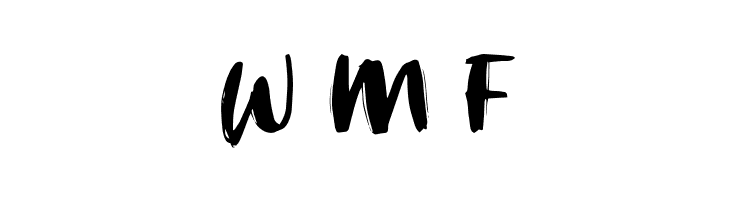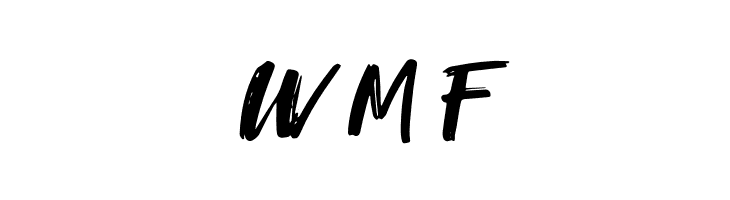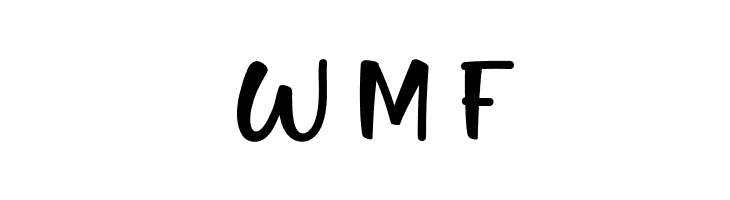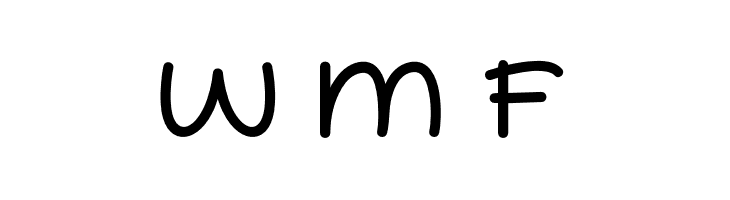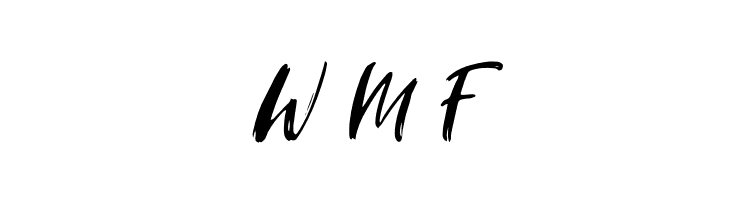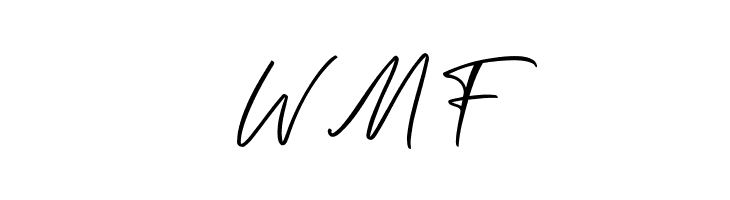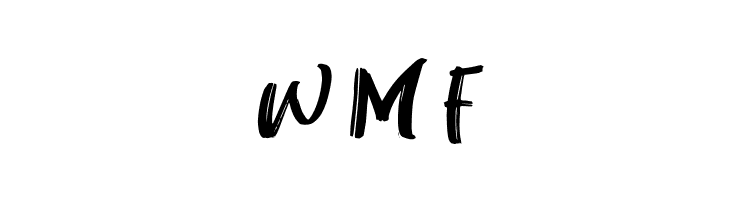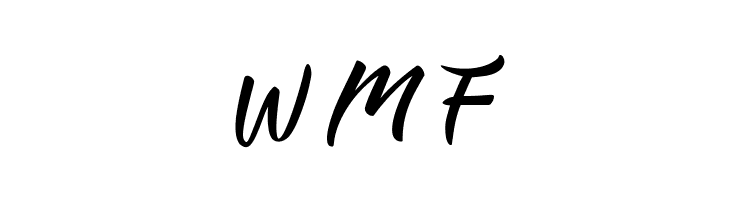
A bold, expressive brush script font with dynamic strokes and artistic flair.
A dynamic and fluid script font with elegant, flowing letterforms.
An elegant and fluid script font with interconnected letters.
A hand-drawn, sketch-like font with thin, uneven strokes and a creative flair.
Religious pictogram dingbat font with bold, high-contrast icons.
A geometric, abstract font with a futuristic and mechanical style.
A bold, expressive brush-style font with dynamic strokes and a handcrafted feel.
A bold, brush-style font with dynamic, hand-drawn strokes.
A bold, italic, and angular font with a modern and dynamic style.
A modern, geometric italic font with sharp angles and clean lines.
A geometric, modern font with clean lines and a futuristic style.
A geometric, modern font with sharp angles and a technical feel.
A bold, geometric font with a modern and industrial aesthetic.
A sleek, geometric font with a modern, italic style.
A bold, italicized font with a modern, angular design.
A bold, geometric font with thick strokes and sharp edges.
A playful, bold, and hand-drawn style font with rounded characters.
A lively, cursive handwritten font with fluid strokes and a personal touch.
A dynamic, brush-style font with bold, expressive strokes.
A playful, rounded font with a hand-drawn, whimsical style.
A playful, handwritten font with rounded, bold characters.
An elegant script font with flowing, cursive style and high contrast strokes.
A lively, expressive handwritten font with dynamic strokes and playful bounce.
A bold, brush-style font with dynamic strokes and high contrast.
A bold, expressive handwritten font with dynamic strokes and a brush-like texture.
A playful, handwritten font with smooth curves and a casual style.
A playful, handwritten font with fluid strokes and a casual feel.
A fluid and elegant script font with a dynamic handwritten style.
A bold, dynamic brush script font with expressive strokes and artistic flair.
A decorative script font with intricate floral embellishments.